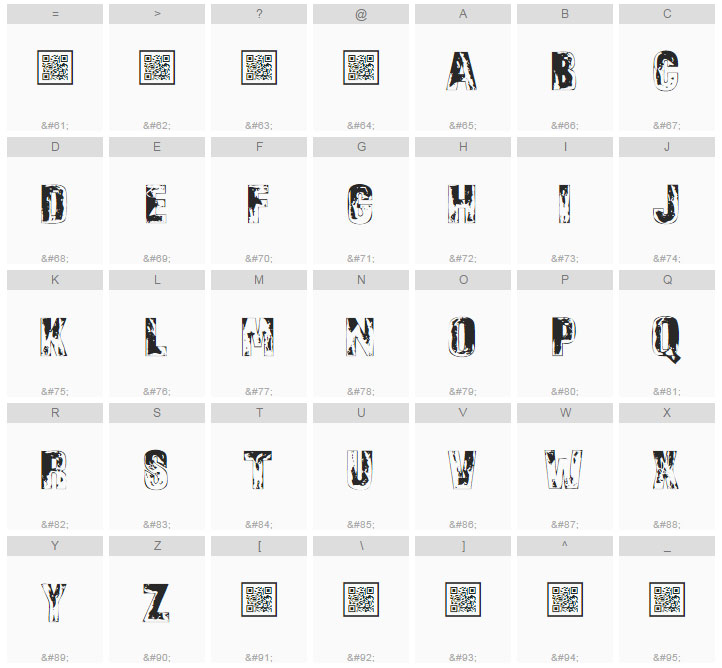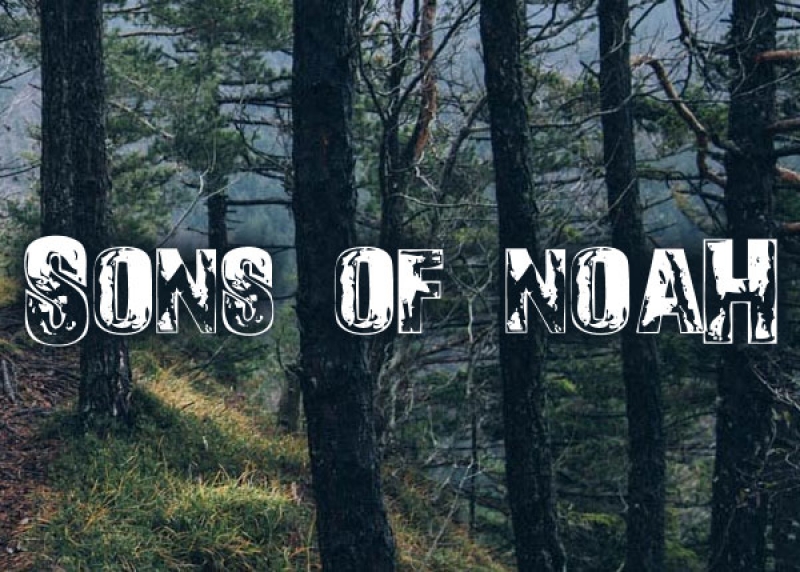
Sons of Noah Font
This font is for demo purposes only. No commercial or monetized use without a font license which can be purchased from our font store. This font is an all caps font, the lowercase is the same as uppercase just scaled down to 80%. There is no numbers or punctuation for this font.